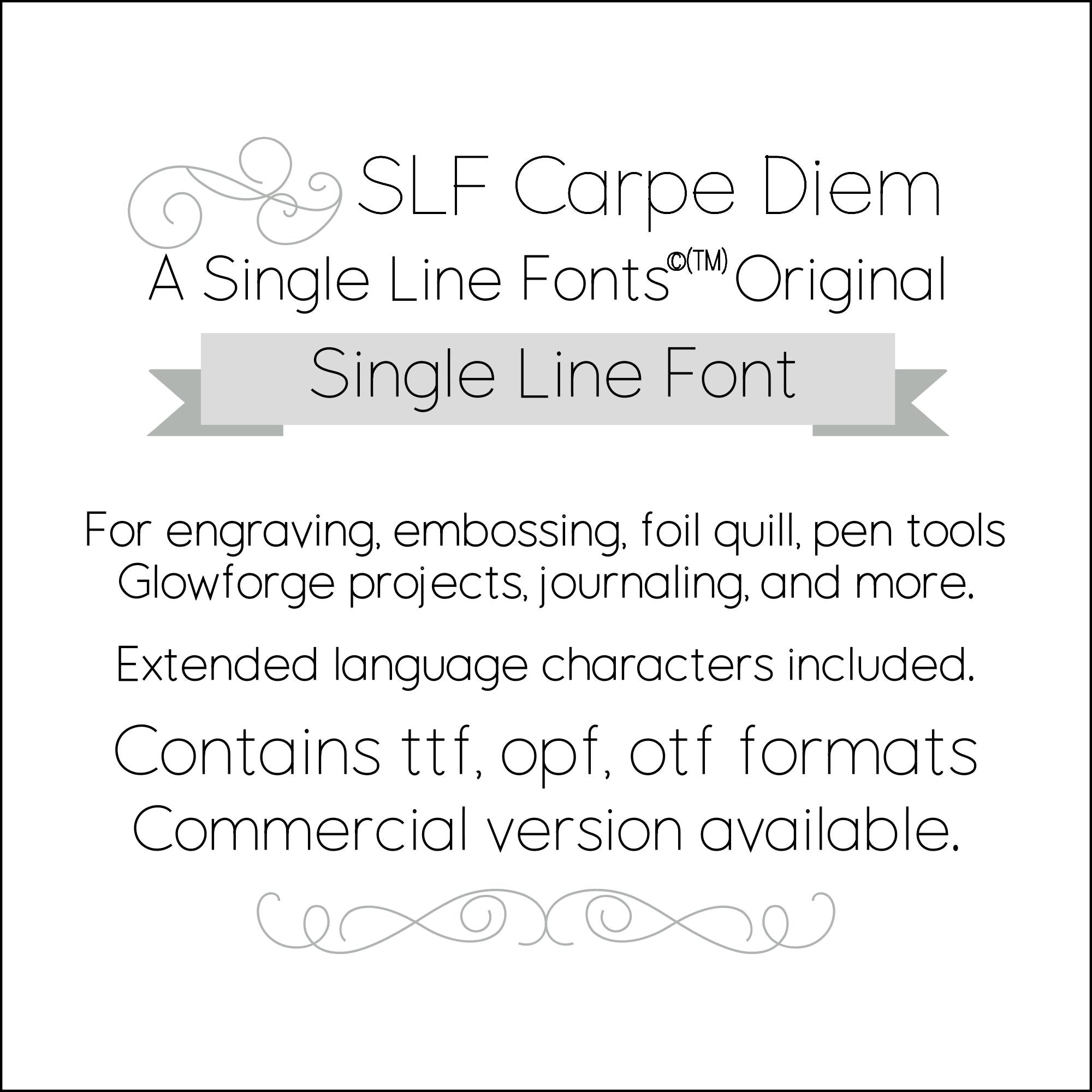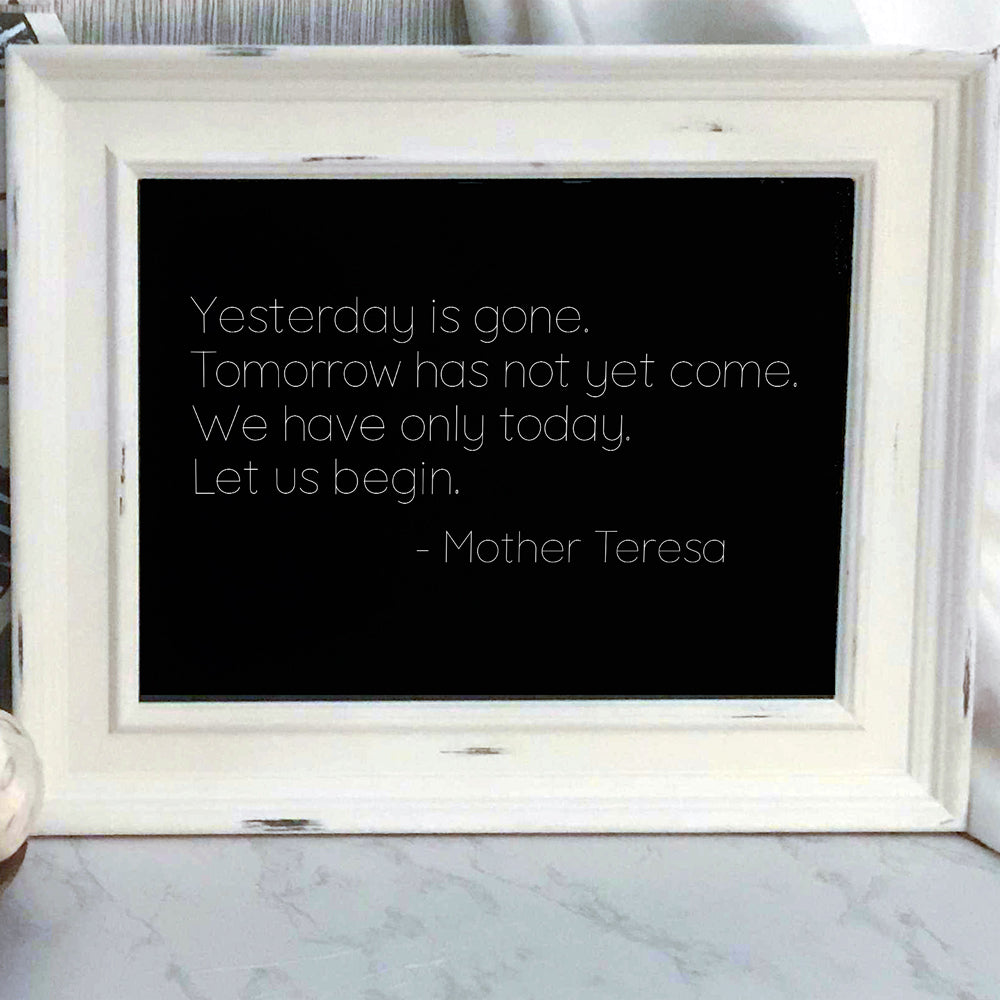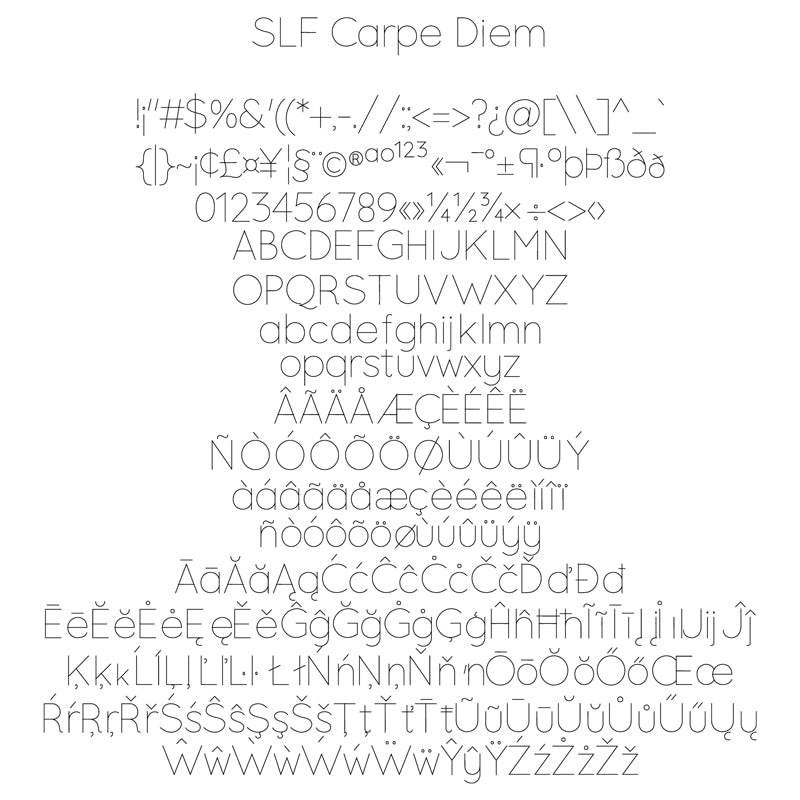
Single Line Font "SLF Carpe Diem"
Minimalistic Print Style
SLF Carpe Diem is a nice fit for wood and metal work, as well as for cardmaking, engraving, foil quilling, and embossing.